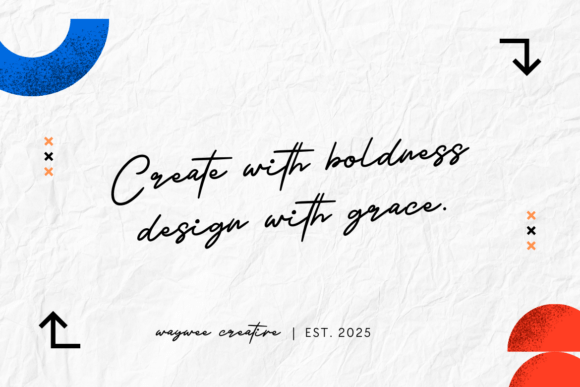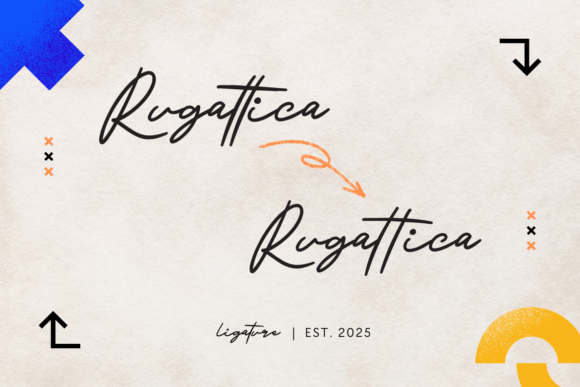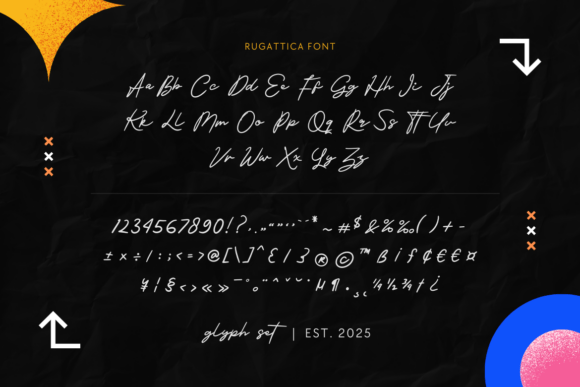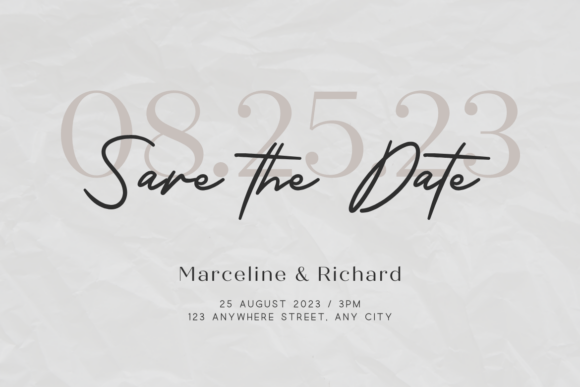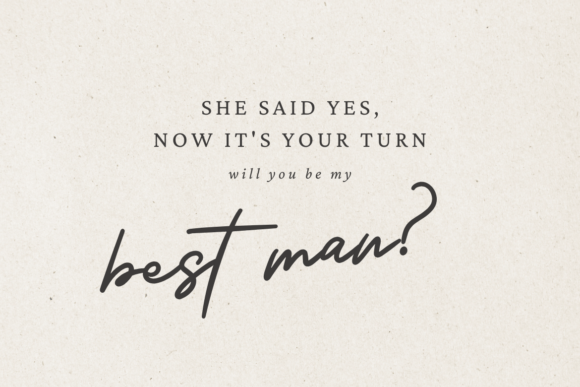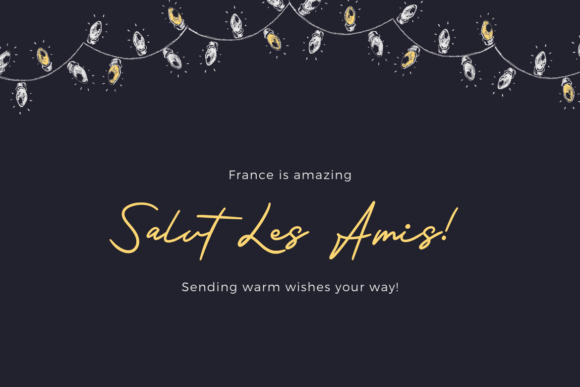
Introduction to Rugattica Font
✨ Rugattica – A Script of Power & Grace ✨ Introducing Rugattica, a bold, handwritten script designed to bring confidence and elegance to your projects.
With its expressive strokes and seamless ligatures, Rugattica blends modern sophistication with effortless charm, making it the perfect choice for branding, editorial designs, invitations, and beyond Bold & Dynamic – Every stroke is crafted precisely, exuding strength and authenticity.